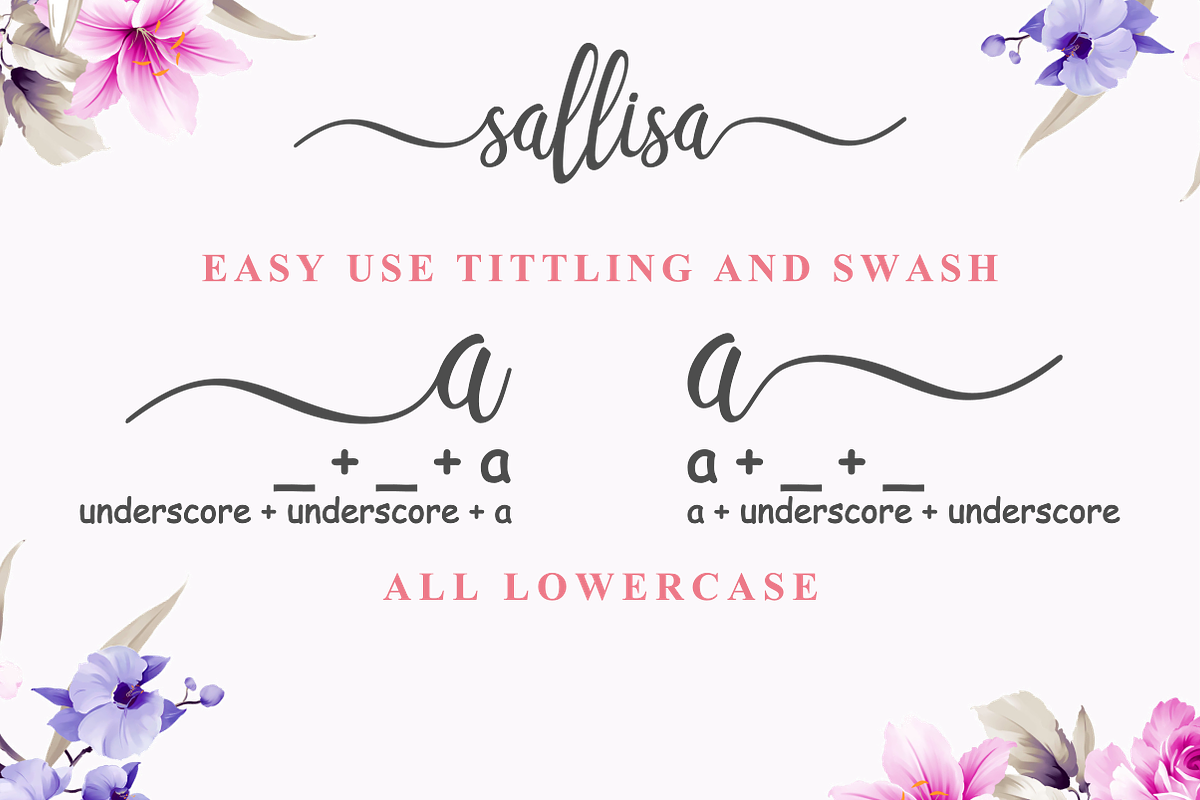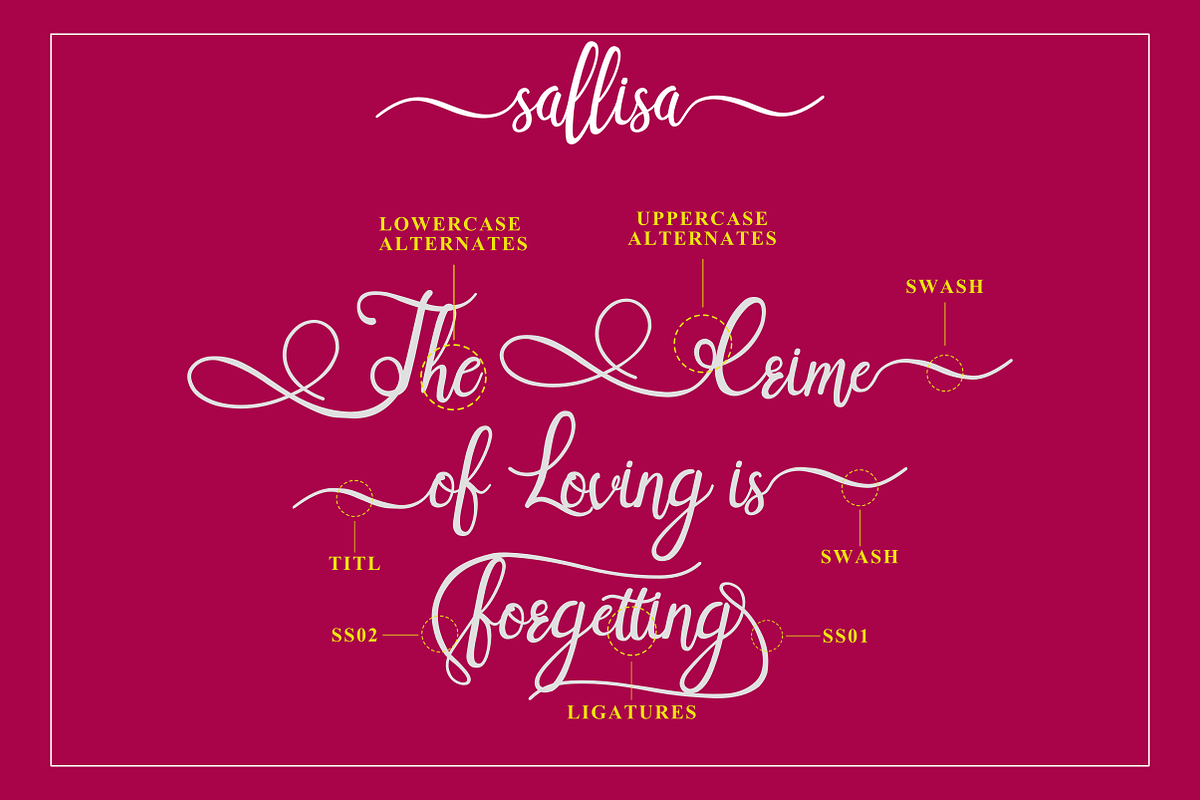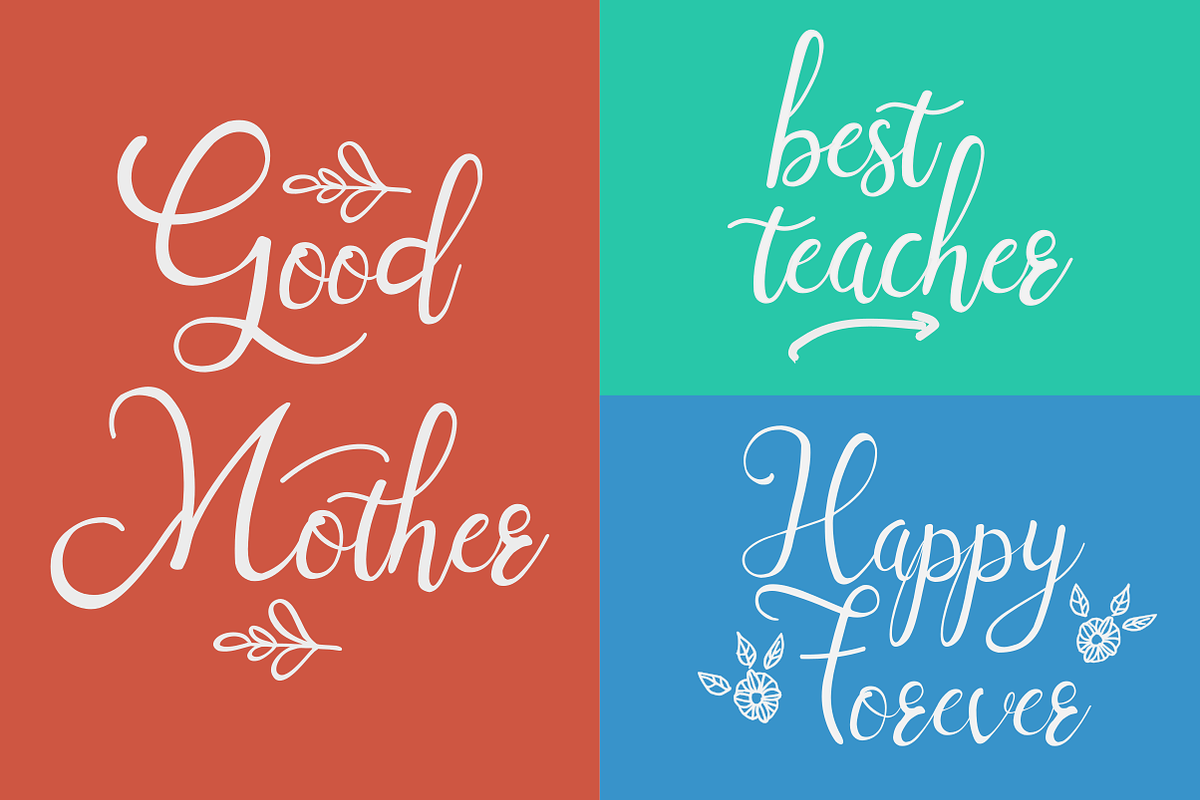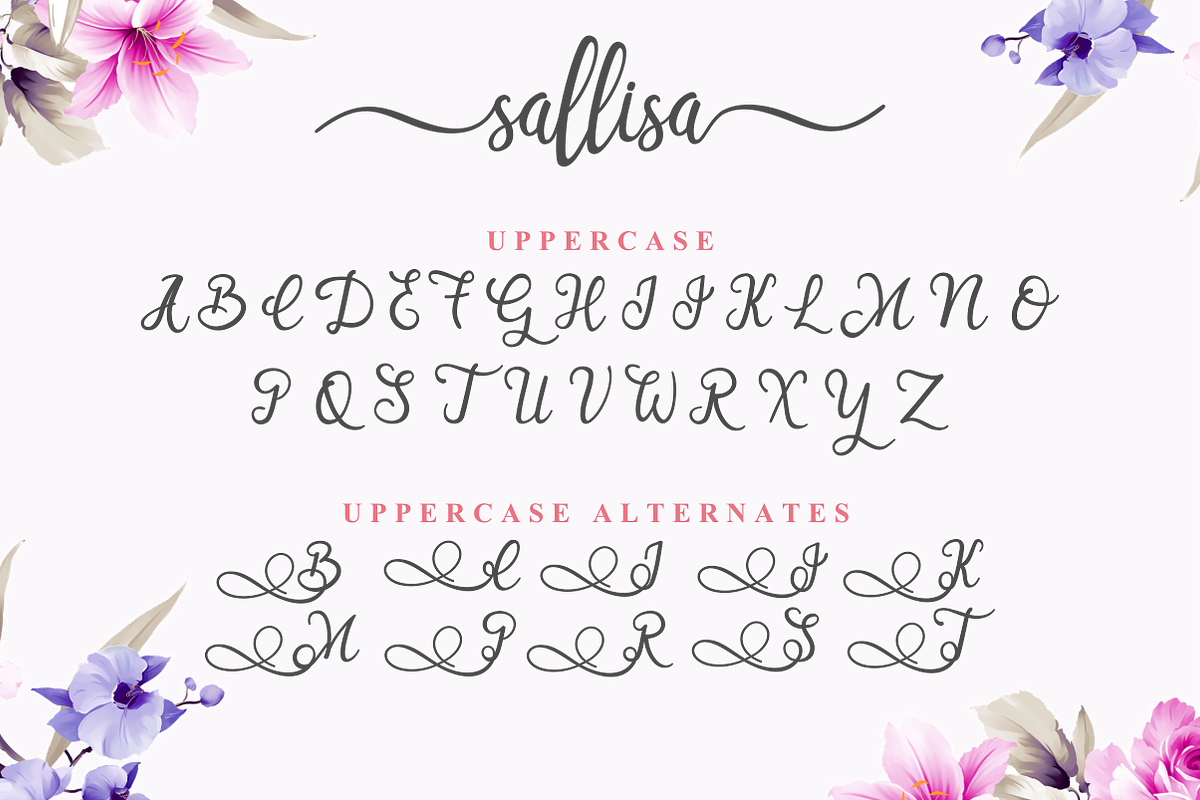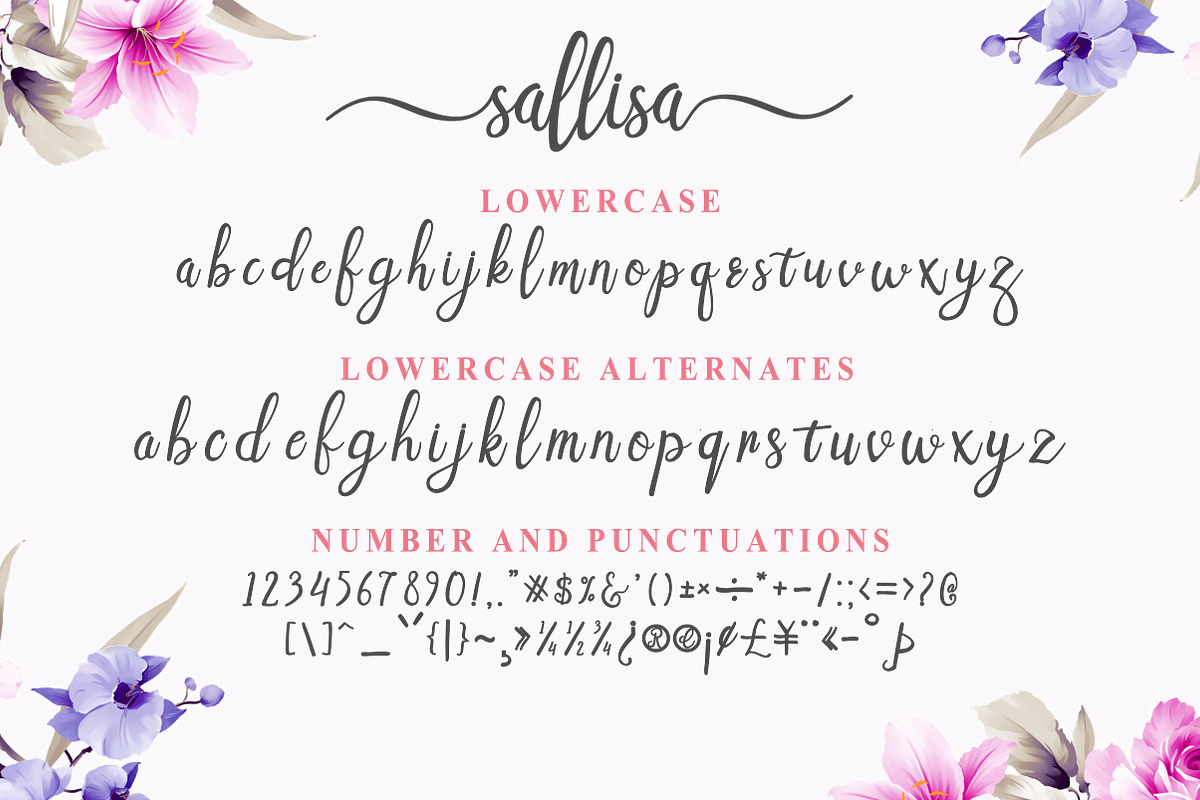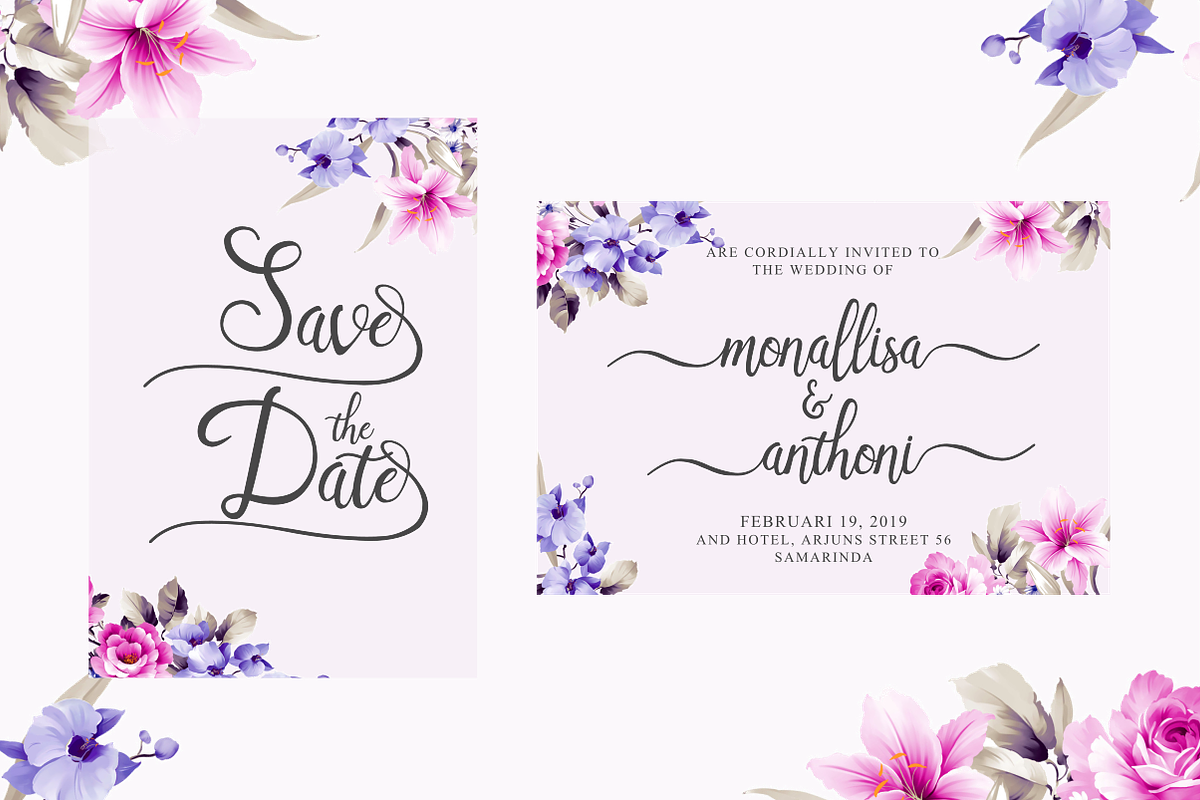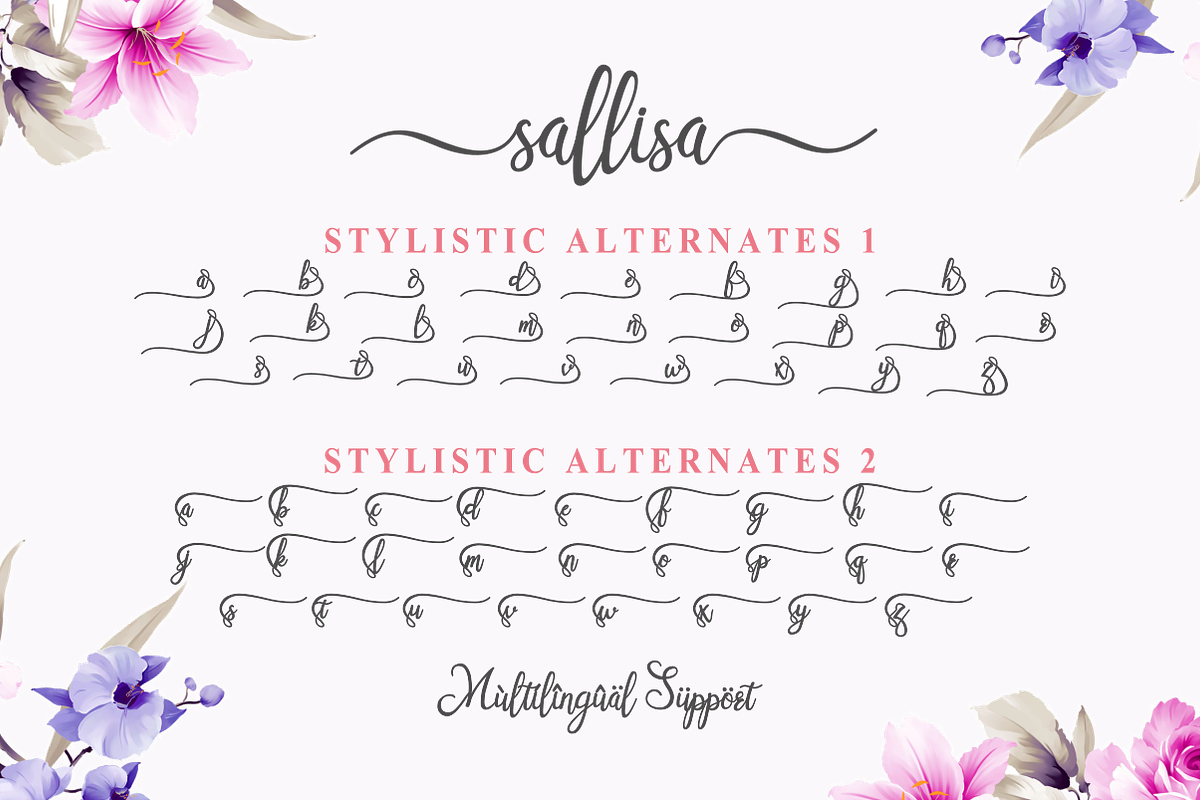
Sallisa | Script Font
The Sallisa is a beautiful script font. It has a modern, yet elegant touch and is perfect for giving your designs a luxurious feel.
It’s great for logos & branding, photography, invitations, watermarks, advertisements, and every other design which needs a handwritten feel.
Sallisa | Script Font by Pandanwangi fits naturally into Branding, posters, packaging, typography.